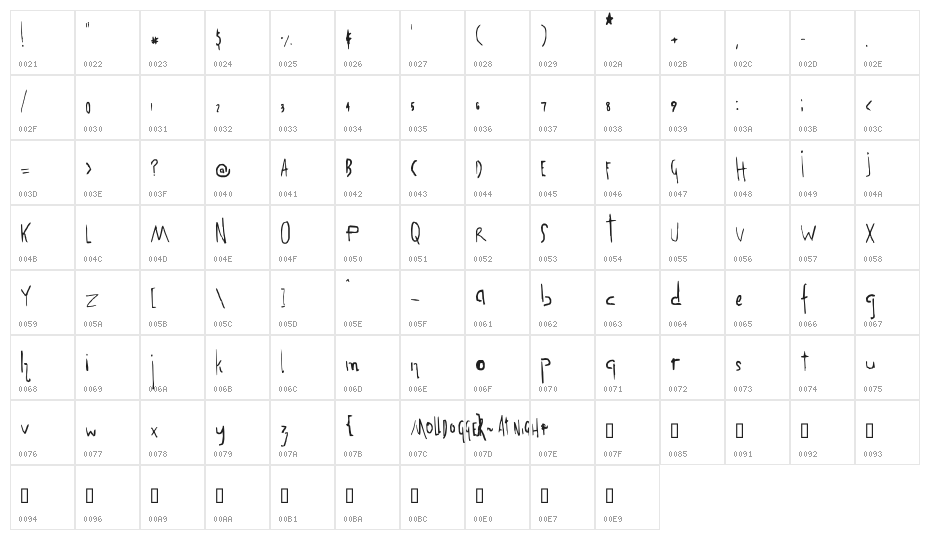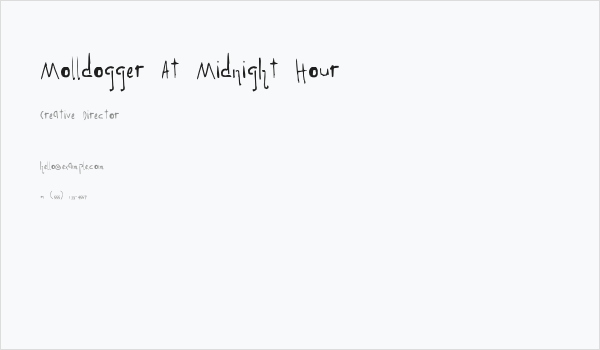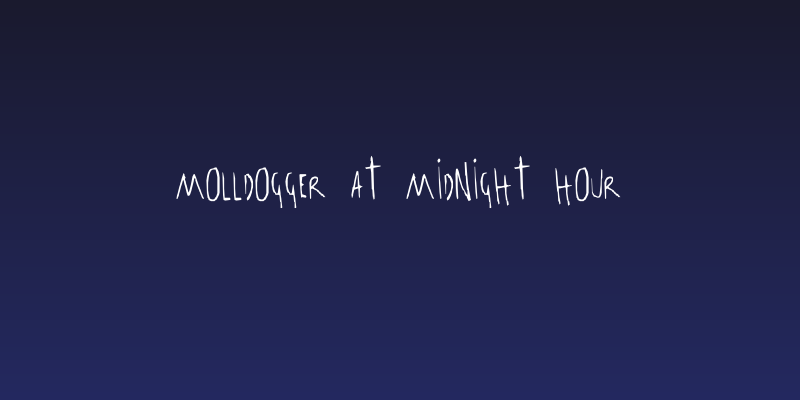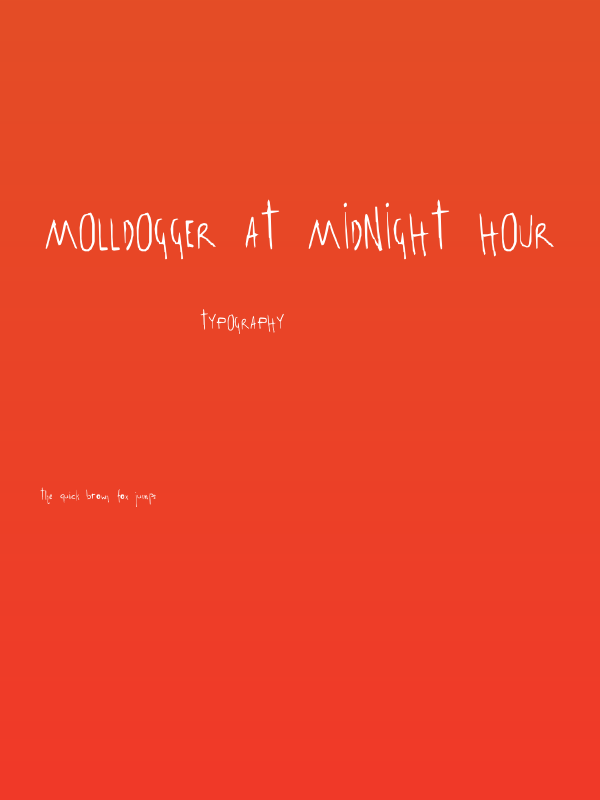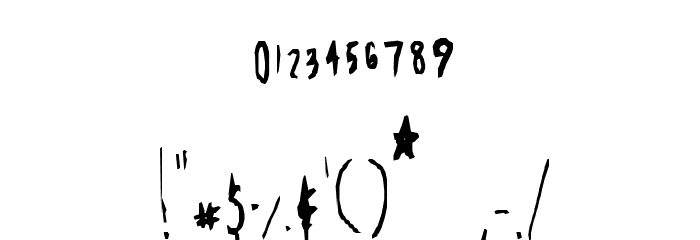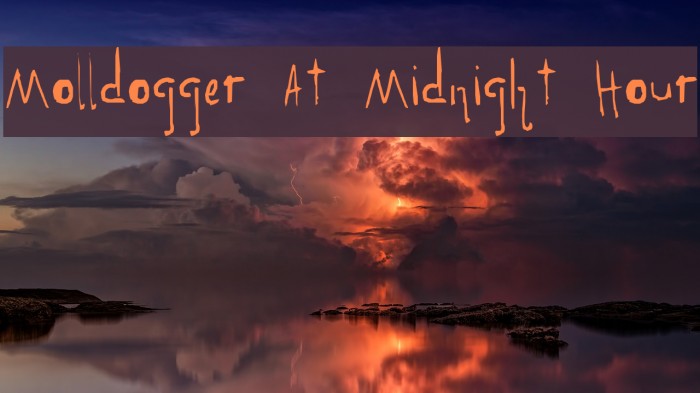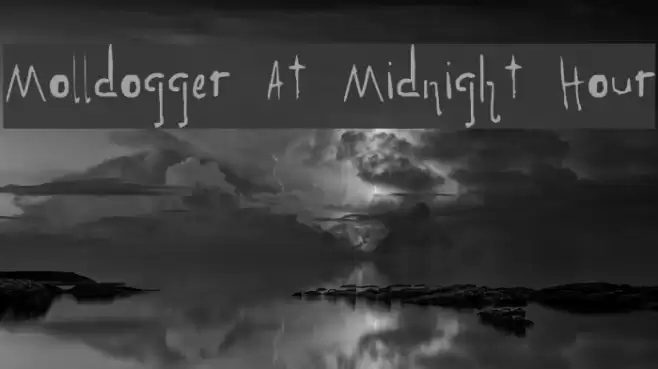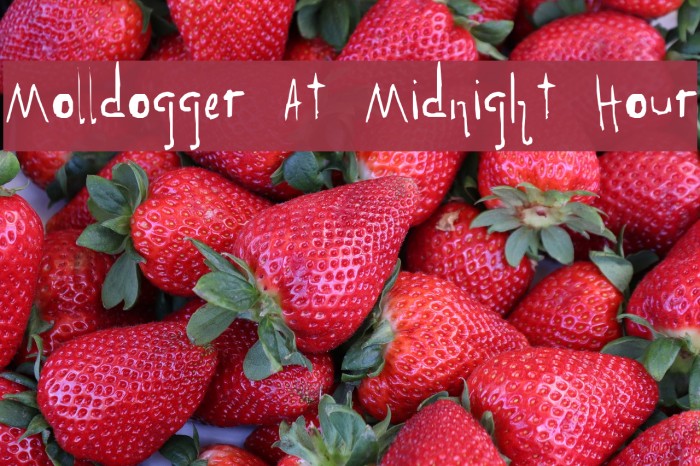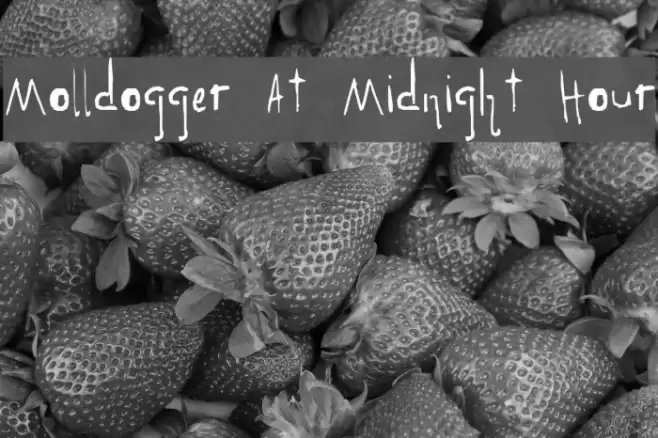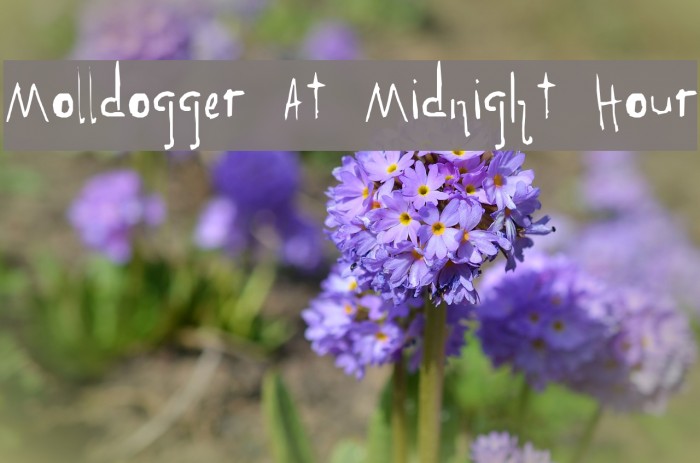
Molldogger At Midnight Hour Font
Molldogger At Midnight Hour Description
This font features a unique, hand-drawn style with irregular, elongated strokes that give it a whimsical and slightly eerie appearance. The characters are unevenly spaced, adding to its quirky charm. The uppercase letters are tall and narrow, while the lowercase letters maintain a consistent height with playful variations in form. Numbers and special characters follow the same artistic style, making the font cohesive. Its distinctive look is reminiscent of a handwritten script, yet it maintains legibility. The font's artistic flair makes it suitable for creative projects that require a touch of individuality.
| Width | Condensed |
| Use Case | Headlines, Logos, Artistic projects |
| Proposed Projects | Ideal for Halloween-themed designs, children's book covers, artistic posters, and unique branding projects. |